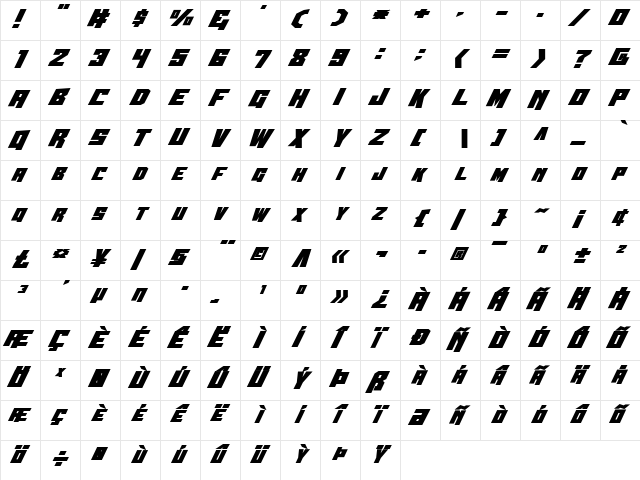
Whiskey Bravo Victor Bold Bold Font Preview
Whiskey Bravo Victor Bold Bold
Whiskey Bravo Victor Bold Bold Font Details
| Designer | Dan Zadorozny |
Design Context for Whiskey Bravo Victor Bold Typeface
Whiskey Bravo Victor Bold is a composed and adaptable typeface that performs quietly and consistently across a wide range of design contexts. Its bold stroke weight gives it real presence on the page.